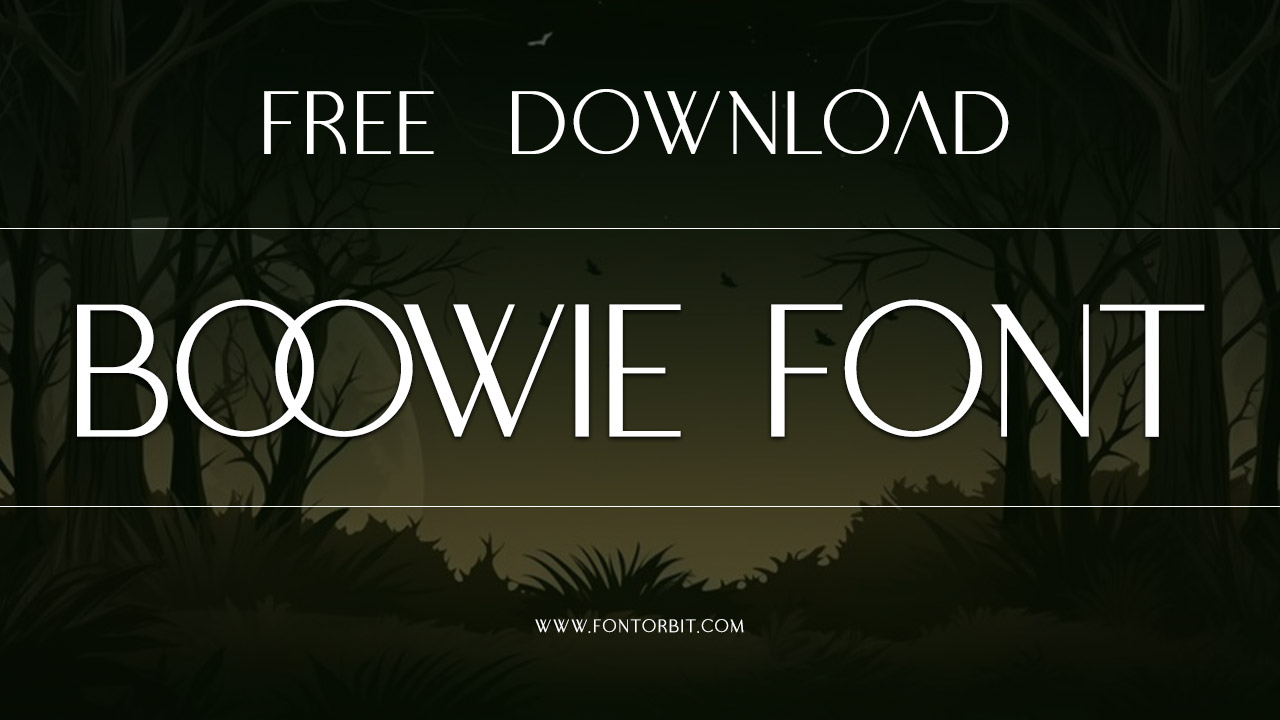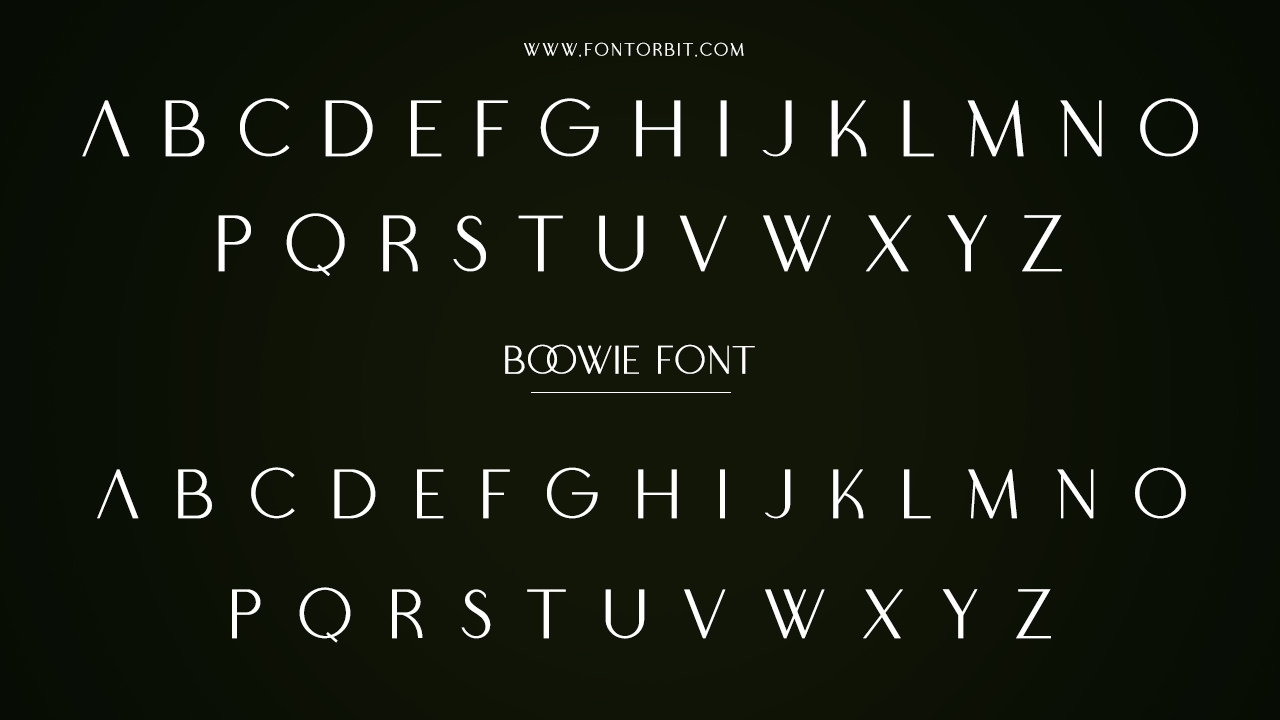
Boowie is a minimalist sans serif typeface designed by Typeline Studio. This stylish font offers both regular and italic versions, combining modern aesthetics with a vintage touch. It is perfect for various design applications and was released for free personal use.
Notable Uses Of Boowie Font
Boowie is frequently used in diverse contexts, including:
- Logo Design
- Print Media
- Digital Collages
- Body Text
You can effectively use Boowie in:
- Marketing Materials
- Personal Projects
- Social Media
Boowie is an attractive, minimalist font that perfectly blends modernity with vintage charm. Its range of applications and availability for personal use make it an excellent choice for designers and creatives looking to enhance their projects.
3.What Styles Does Boowie Font Include?
Boowie includes Regular and Italic styles.
4.What Is The Best Use Case For Boowie Font?
It’s ideal for logos, print media, and digital collages.
5.Is Boowie Suitable For Long Texts?
Yes, its readability makes it suitable for body text.